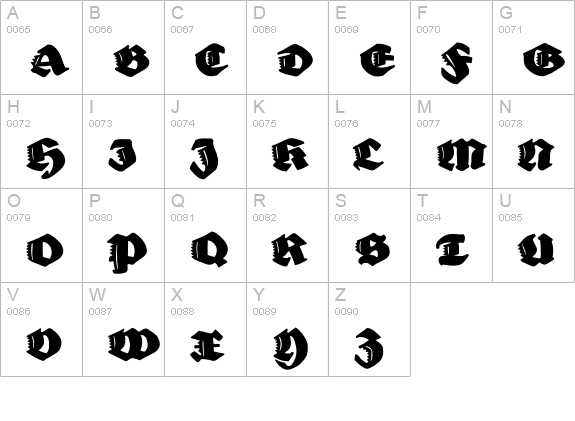
Introducing BigElla font, a modern and stylish typeface that exudes sophistication and elegance. With its sleek lines and unique curves, BigElla is perfect for creating eye-catching designs that stand out. This versatile font can be used for various projects, from branding to packaging to social media graphics. What sets BigElla font apart is not only its stunning design but also the fact that it is free to download. Yes, you read that right! BigElla font is freely available for download at FontsMarket.com, making it accessible to everyone looking to add a touch of class to their creations without breaking the bank. Whether you're a graphic designer, a business owner, or a creative enthusiast, BigElla font is sure to elevate your projects and leave a lasting impression. Don't miss out on the opportunity to enhance your designs with this elegant and stylish font – download BigElla today and let your creativity shine!